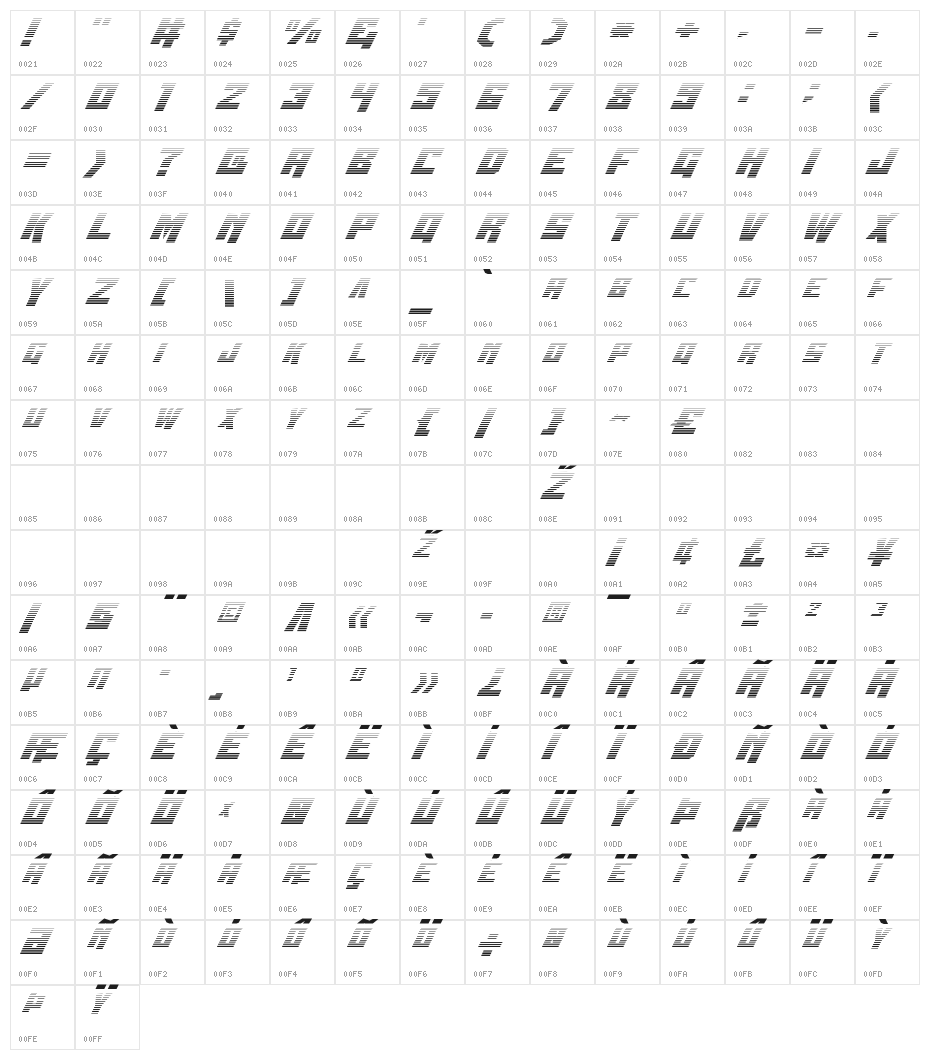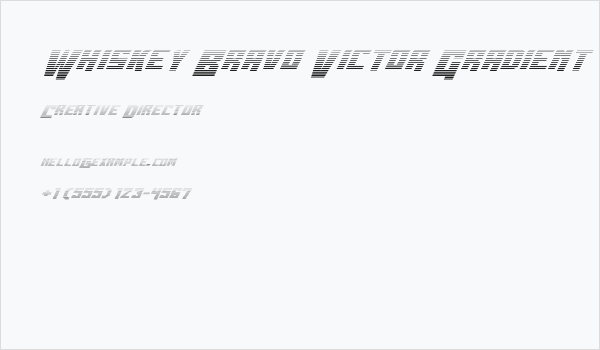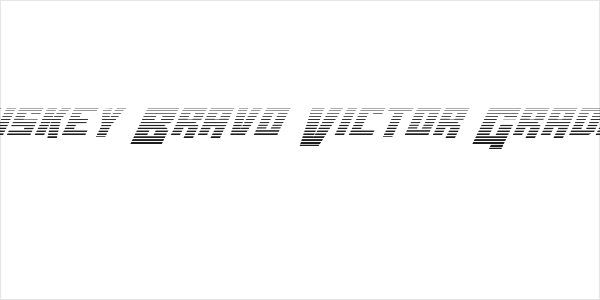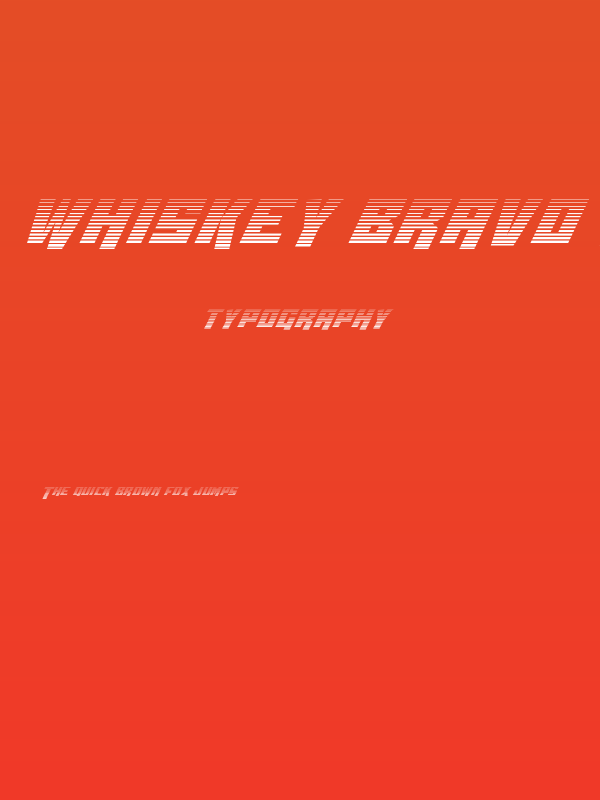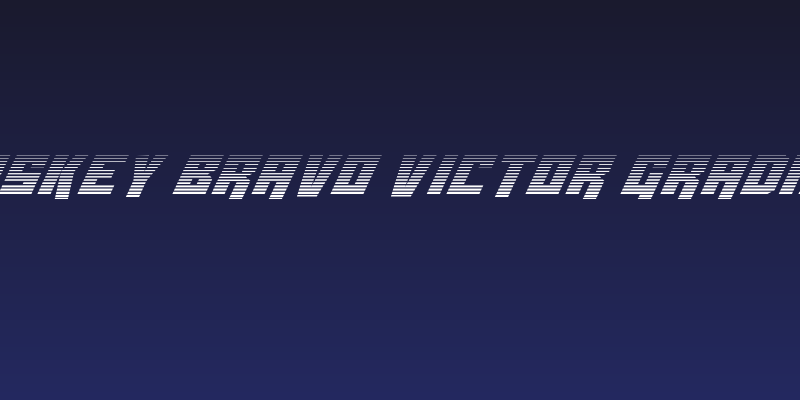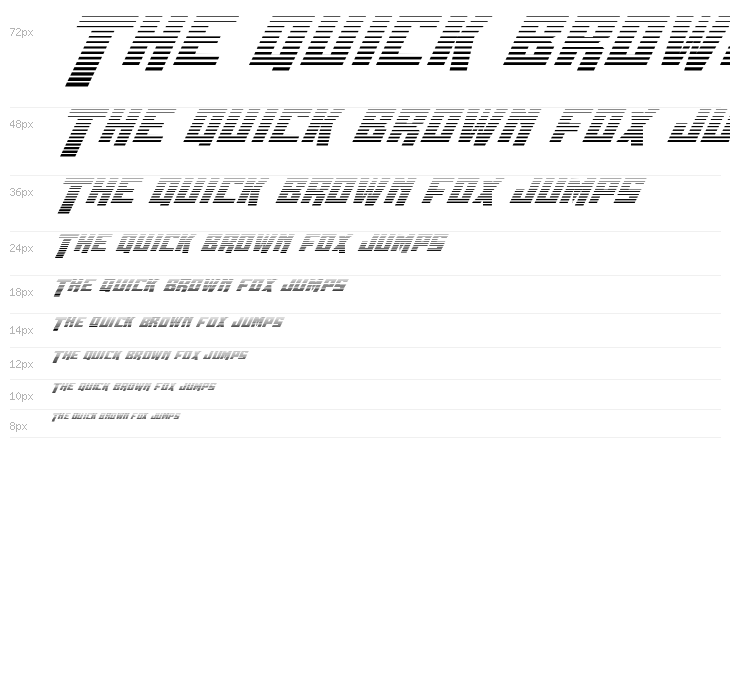
Whiskey Bravo Victor Gradient Font
Whiskey Bravo Victor Gradient Description
This font features a bold and dynamic design with a distinct gradient effect created by horizontal lines. Each character is constructed with a series of parallel lines that vary in thickness, giving the impression of movement and depth. The uppercase and lowercase letters maintain a consistent style, while the numbers and special characters complement the overall aesthetic. The font's unique appearance makes it stand out, suitable for projects that require a modern and edgy look. Its design is reminiscent of digital or futuristic themes, making it ideal for technology-related applications or creative branding.
| Proposed Projects | This font is perfect for technology branding, digital art projects, futuristic-themed posters, and innovative product packaging. |